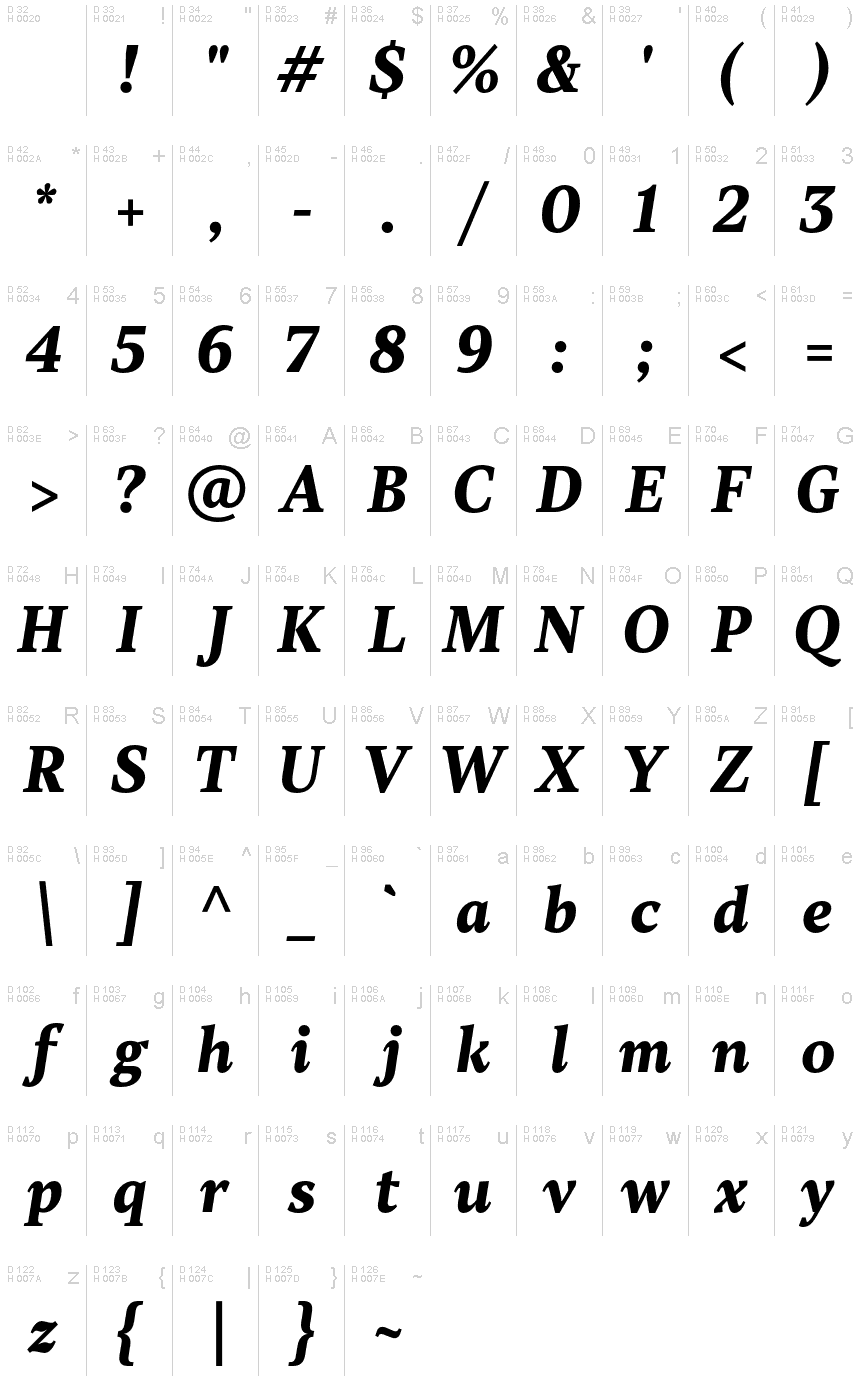
TT Jenevers Trl ExtraBold Italic
TT Jenevers ExtraBold Italic is a stunning serif font that demands attention. Designed by the talented TypeType Foundry, this font is perfect for projects that require a touch of elegance and sophistication. The extra-bold weight of TT Jenevers gives it a bold and powerful presence, while the italic style adds an element of flair and creativity.This font would be ideal for designing luxury product packaging, high-end fashion magazines, or elegant wedding invitations. The timeless design of TT Jenevers ExtraBold Italic will add a touch of class to any project it’s used in.Overall, if you’re looking for a high-quality serif font that exudes luxury and sophistication, look no further than TT Jenevers ExtraBold Italic.